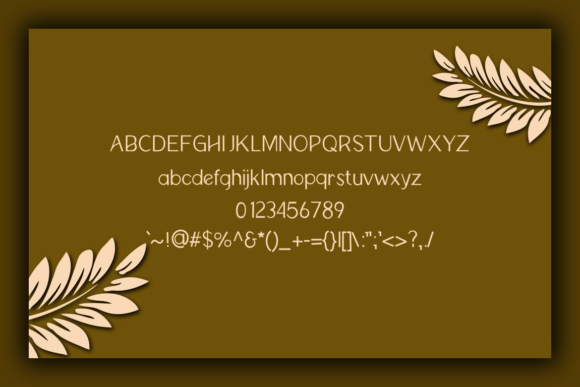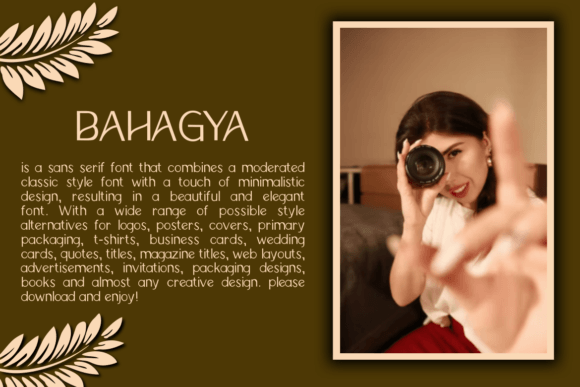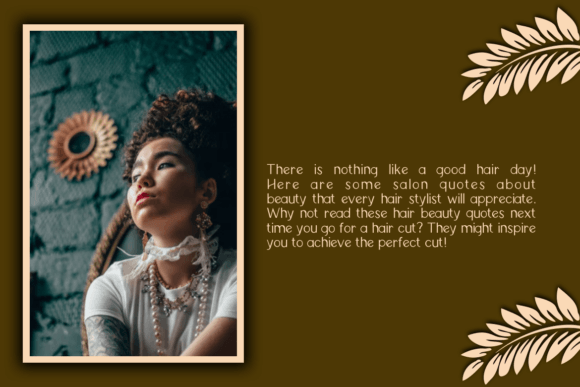
Have you ever stared at a blank page, trying to find the perfect font to bring your design to life? I know I have. Sometimes, it’s the smallest details that make all the difference, and for me, that’s exactly what happens when I discover a new font that speaks to me.
Enter the Bahagya Font, a stylish and modern sans serif font that’s perfect for creating feminine, chic designs. This elegant font is designed to make a statement, with its unique and sophisticated style that’s sure to impress. Whether you’re a professional designer or a creative hobbyist, the Bahagya Font is a valuable addition to your toolkit, offering endless possibilities for your next project.
With its versatility and timeless appeal, the Bahagya Font is a must-have for anyone looking to elevate their design game. So why settle for a generic font when you can make a statement with the Bahagya Font?
Bahagya Font Key Features
- Font Family: Bahagya Font is a unique, modern sans-serif font designed for digital use, making it ideal for web and mobile applications.
- Character Set: Supports a wide range of languages, including Latin, Cyrillic, and Devanagari, making it a versatile choice for multilingual projects.
- Unique Characteristics: Features a clean, geometric design with subtle rounded corners, giving it a friendly and approachable feel.
- Font Styles: Includes multiple font styles, including Regular, Bold, Italic, and Bold Italic, allowing for a range of visual effects and emphasis.
Bahagya Font Review
As a designer, I’m always on the lookout for unique and versatile fonts that can elevate a design. The Bahagya Font is one such find. ✨ Its elegant and refined aesthetic makes it perfect for projects that require a touch of sophistication.
- ✨ Elegant and refined aesthetic: The Bahagya Font’s subtle curves and lines give it a sophisticated look that’s perfect for high-end projects.
- ✨ Versatility: It works well for both digital and print media, making it a great choice for a wide range of applications.
- ✨ High-quality rendering: The font renders well in various sizes and resolutions, ensuring that it looks great across different platforms.
- ⚠️ Limited language support: The Bahagya Font may not support all languages, which could be a limitation for projects that require multilingual text.
- ⚠️ Not suitable for bold or playful designs: The font’s elegant aesthetic may not be the best fit for projects that require a bold or playful tone.
Overall, the Bahagya Font is a solid choice for designers who want a refined and sophisticated aesthetic. While it may have some limitations, its versatility and high-quality rendering make it a great addition to any design toolkit.
Tips for Getting the Most Out of Bahagya Font
To get the most out of Bahagya Font, use it for:
- Headings and titles for its elegant and sophisticated look.
- Body text for its clear and readable appearance.
- Combine with other fonts for a unique and eye-catching design.
Bahagya Font is commonly used for:
- Business cards and brochures.
- Blog posts and articles
Alternatives to Bahagya Font
Bahagya Font is a modern and elegant font, but sometimes designers may want to explore other options. Here are 3-4 alternatives to Bahagya Font:
Merriweather is a classic serif font that is perfect for body text, headlines, and titles. It has a traditional feel with a modern twist, making it ideal for designers who want a timeless look.
Comparison to Bahagya Font: Merriweather is more formal and traditional compared to Bahagya Font’s modern and elegant feel. While Bahagya Font is perfect for contemporary designs, Merriweather is suitable for classic and sophisticated designs.